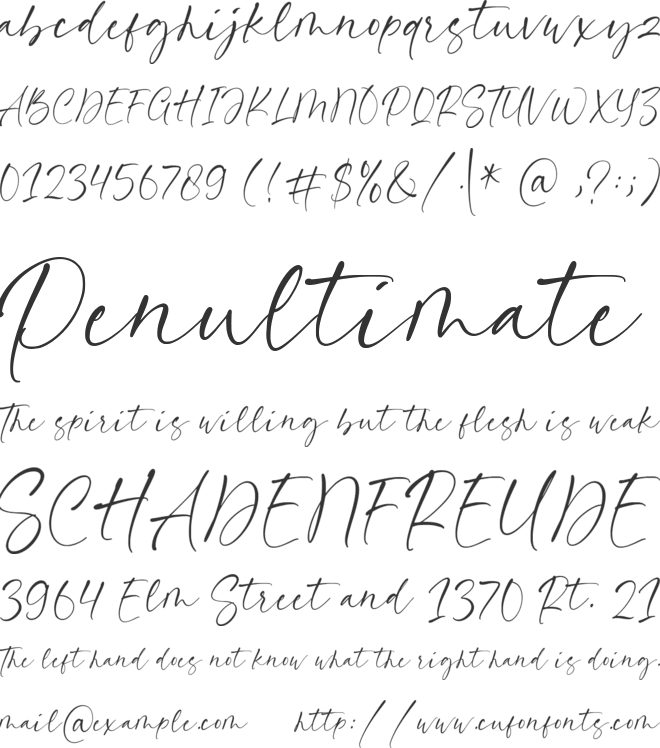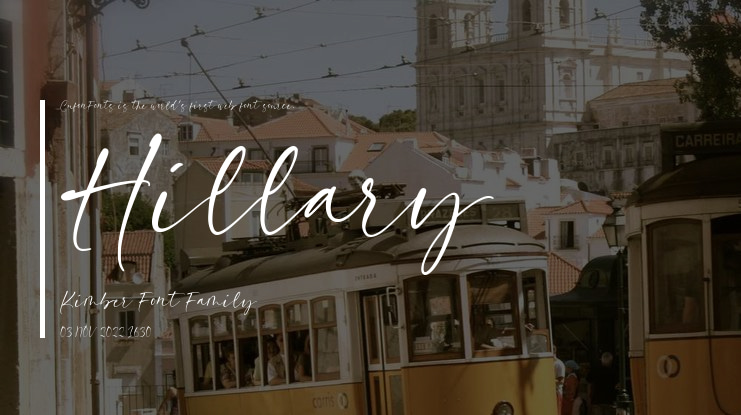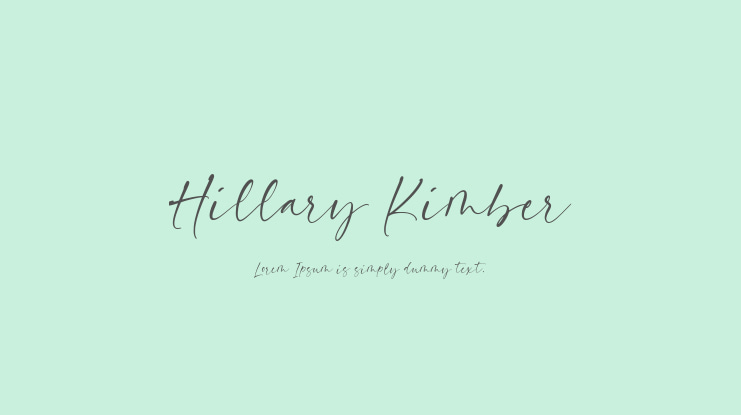
Hillary Kimber Font
Introducing Hillary Kimber, a delightful handwritten font brought to you by Balpirick Studio.
Bring a personal touch to your design projects with Hillary Kimber. This font exudes a natural and organic feel, with its unique character.
Crafted meticulously with care and attention to detail, Hillary Kimber is an incredibly versatile font suitable for various design projects. Its modern and handwritten style adds a distinct character that is sure to make a lasting impact.